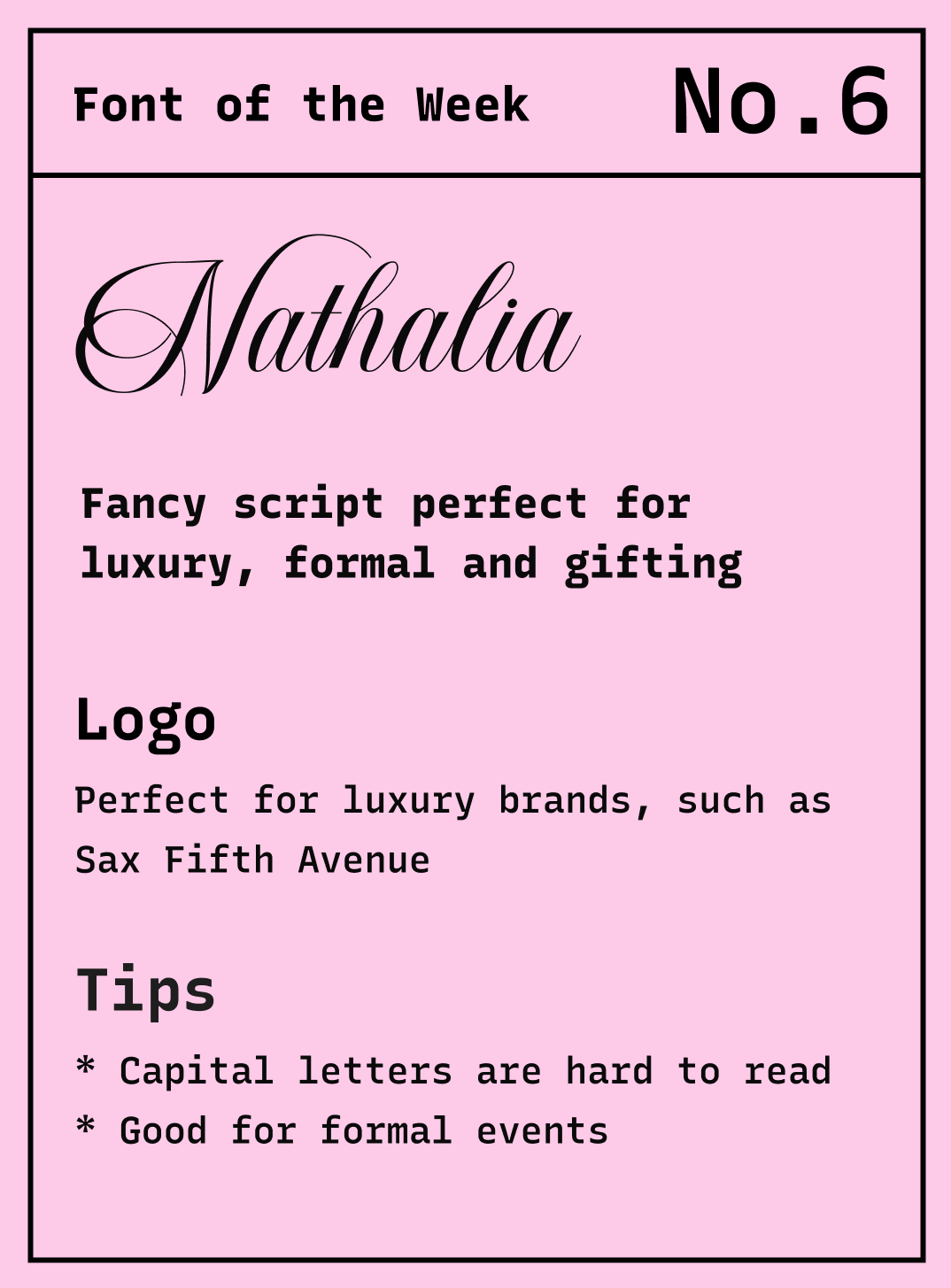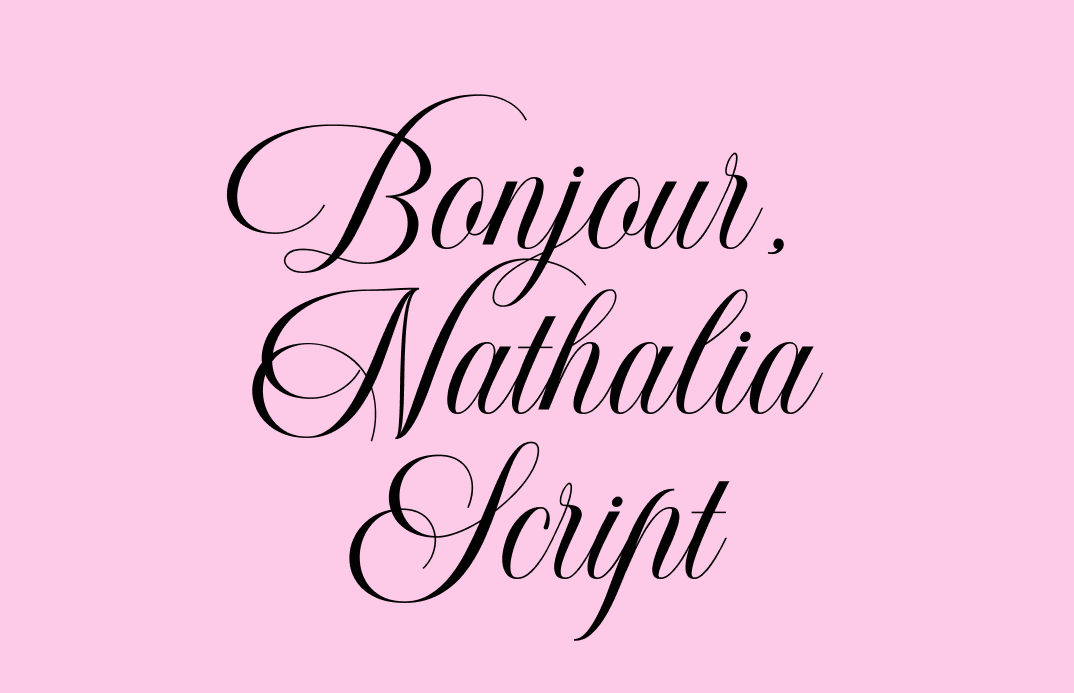
How are you? I hope you are doing well : ) Thanks so much for being here. Every week, we profile a new font and dive into trends, facts, and how-tos about using it. Welcome to our sixth profile!
Love is in the air. The most romantic day of the year is about to be here~ are you doing anything fun to celebrate?
Whenever it's Valentine's day, I love walking down the aisles at the store and look at all the packaging that's only available during this time of the year. Full of warm and fuzzy feelings, I will find many beautiful script lettering. :~) These are much softer than Langar, which we profiled in our first issue.
Script lettering can be created with any tool, such as a nib pen or a marker. Each tool makes a distinct mark and causes the resulting script to have a unique look and feel.
Nathalia is thin and elongated. Its curves are smooth and graceful. Try tracing out the shape of "N" in the air, and you will find yourself making grandeur, expressive movements.
The showy curves of this font are typical of formal scripts. Traditionally, these scripts are generated with a quill, which causes the "thick and thin" in the strokes. This contrast, along with the grandeur and graceful curves, gives Nathalia an elegant, personal feel with a sense of formality and tradition.
How to use Nathalia Script
Logo
This font can be used for logos as long as it is legible. The capital letters are very hard to read. It is perfect for a luxury brand, such as Saks Fifth Avenue.
Typography System
Use sparingly. It's perfect for social media graphics, invitations, or graphics for gifting or formal events. Quill always brings a little extra luxury and magic.
Cautiously Avoid
Don't overuse this font, especially the capital letters.
Creative Prompt
Try making a card for someone using Nathalia. It'll make them smile : )